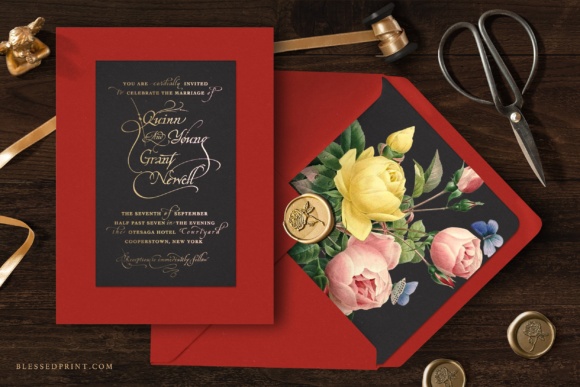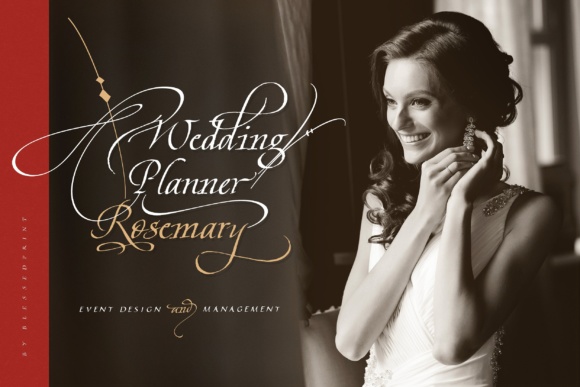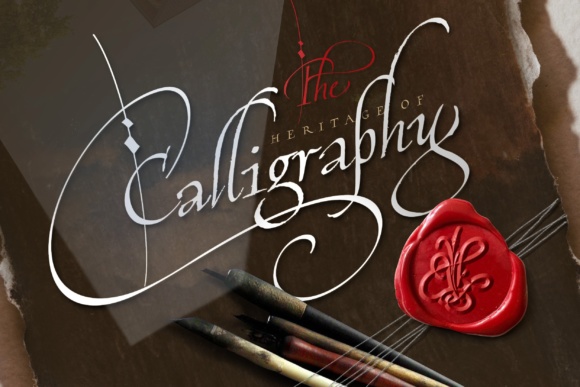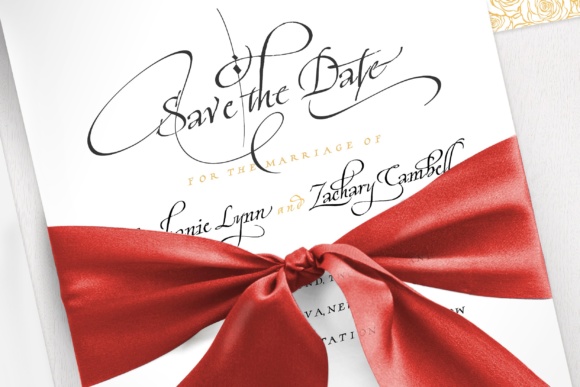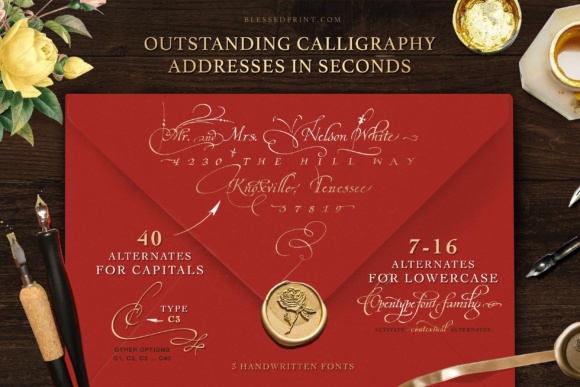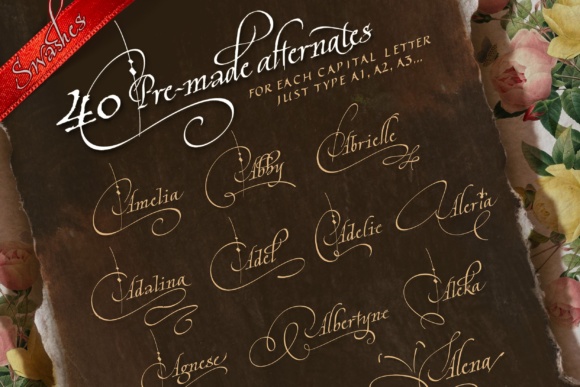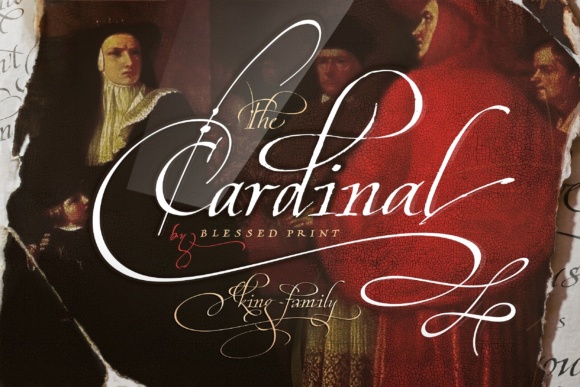
Discover the Elegance of Cardinal Font: A Timeless Choice for Designers and Crafters
The Cardinal font is a traditional italic script that has been a favorite among designers and crafters for years. Its elegant swashes and swirls make it the perfect choice for adding a touch of sophistication to any project. Whether you’re working on a wedding invitation, anniversary card, postcard, or menu, the Cardinal font is guaranteed to bring a clean vintage feel to your design.
What is Cardinal Font?
The Cardinal font is a type of script font that features flowing, connected letters and elegant swashes. Its traditional Italian-inspired design makes it a versatile choice for a wide range of projects, from formal invitations to elegant branding materials. The font’s classic look and feel make it a popular choice among designers and crafters who want to add a touch of timeless elegance to their work.
Key Features of Cardinal Font
• Elegant Swashes and Swirls: The Cardinal font features beautiful swashes and swirls that add a touch of sophistication to any project.
• Traditional Italian-Inspired Design: The font’s classic design makes it a versatile choice for a wide range of projects.
• Clean Vintage Feel: The Cardinal font has a clean, vintage feel that makes it perfect for designers and crafters who want to add a touch of nostalgia to their work.
• Perfect for Wedding and Anniversary Invitations: The font’s elegant design makes it a popular choice for wedding and anniversary invitations.
Uses for Cardinal Font
The Cardinal font is a versatile choice that can be used for a wide range of projects, including:
• Wedding Invitations: The font’s elegant design makes it perfect for wedding invitations, save-the-date cards, and other wedding-related materials.
• Anniversary Cards: The Cardinal font is also a popular choice for anniversary cards and other celebratory materials.
• Postcards: The font’s classic design makes it a great choice for postcards, greeting cards, and other mailers.
• Menus: The Cardinal font can also be used to create elegant menus for restaurants, weddings, and other events.
• Branding Materials: The font’s timeless design makes it a great choice for branding materials, such as logos, business cards, and letterheads.
Tips for Using Cardinal Font
Here are a few tips for using the Cardinal font in your designs:
• Use it sparingly: The Cardinal font is a elegant choice, but it can be overwhelming if used too much. Use it sparingly to add a touch of sophistication to your design.
• Pair it with a simple font: The Cardinal font pairs well with simple fonts, such as Arial or Helvetica. Use a simple font for body text and the Cardinal font for headings or titles.
• Experiment with swashes: The Cardinal font features beautiful swashes and swirls. Experiment with different swash styles to add a unique touch to your design.
The Cardinal font is a timeless choice that offers a unique blend of elegance and sophistication. Its traditional Italian-inspired design makes it a versatile choice for a wide range of projects, from formal invitations to elegant branding materials. Whether you’re a designer or crafter, the Cardinal font is a great choice for adding a touch of vintage elegance to your work.
So why not give the Cardinal font a try? With its beautiful swashes and swirls, it’s sure to add a touch of sophistication to your next project.